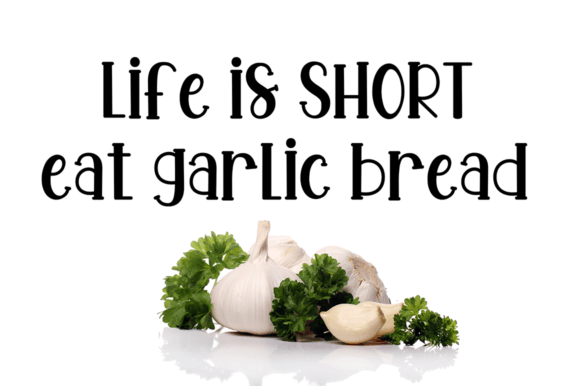
Garlic Bread is a fun and whimsical handwritten font. A little bit quirky, this font looks incredibly adept in a wide variety of contexts!
Garlic Bread Font